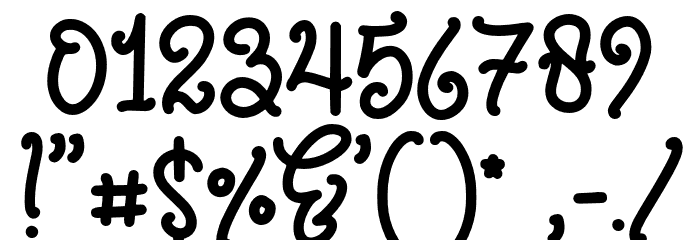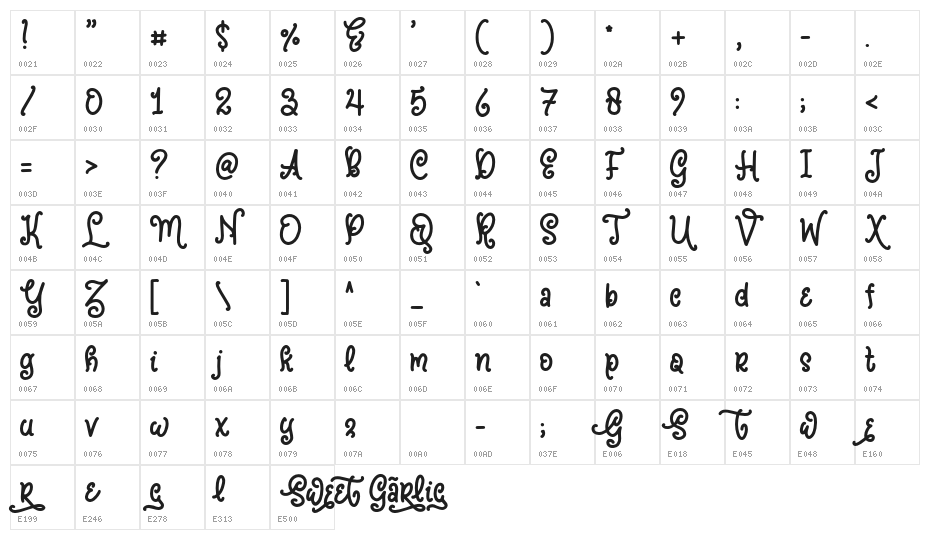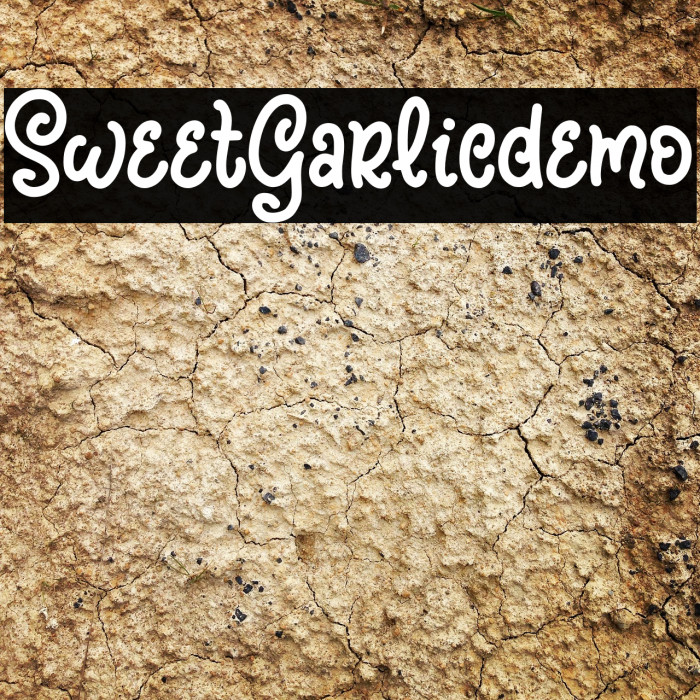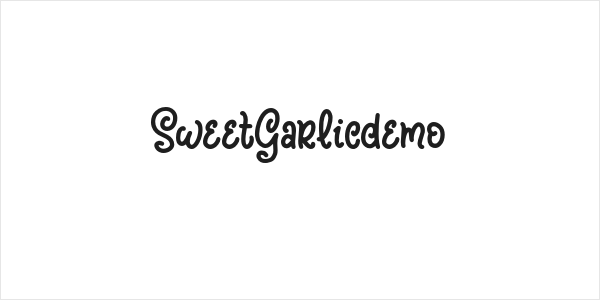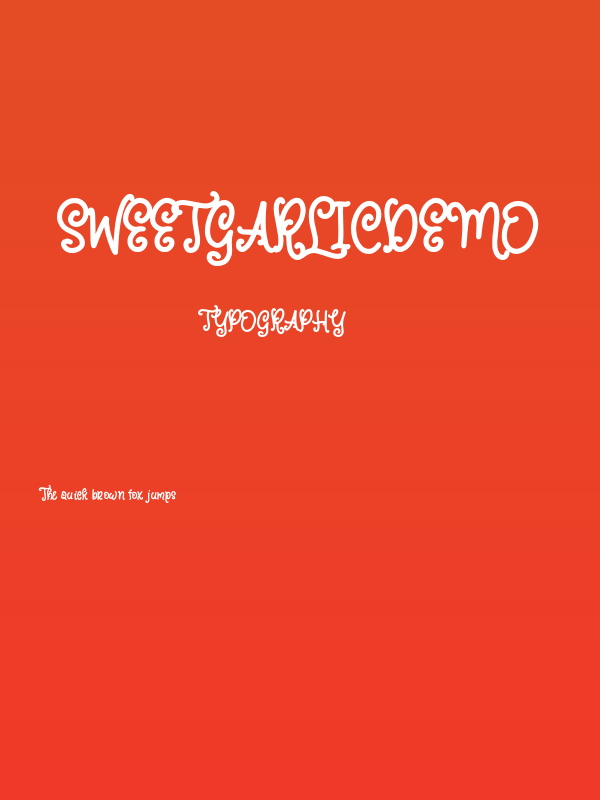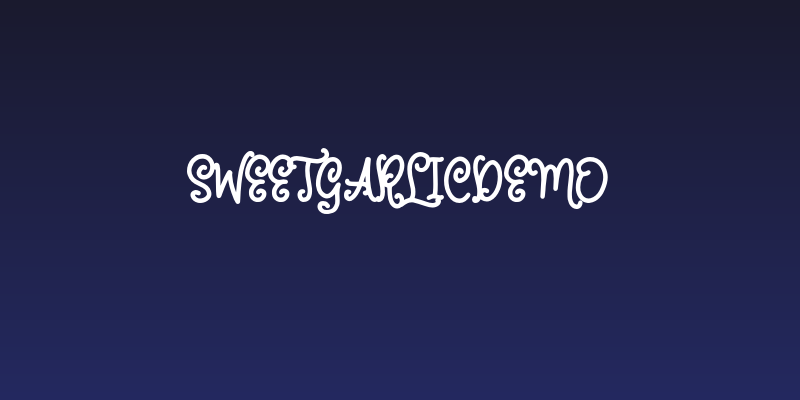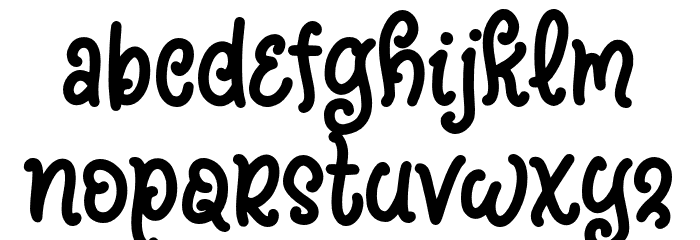
SweetGarlicdemo Font
SweetGarlicdemo Description
This font features a playful and whimsical style, characterized by its bold and curvy letterforms. The uppercase letters are particularly ornate, with swirls and loops that give them a lively appearance. The lowercase letters maintain this playful aesthetic, with a slightly more compact form. The numerals are equally bold and maintain the same curvy style, ensuring consistency throughout the font. Special characters are designed with the same attention to detail, making them blend seamlessly with the rest of the character set. This font's overall appearance is both fun and approachable, making it suitable for a variety of creative projects.